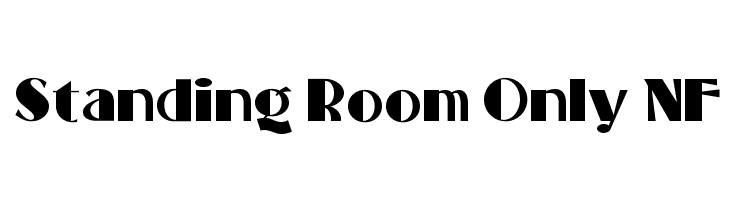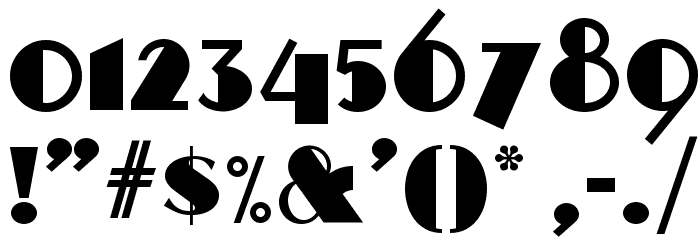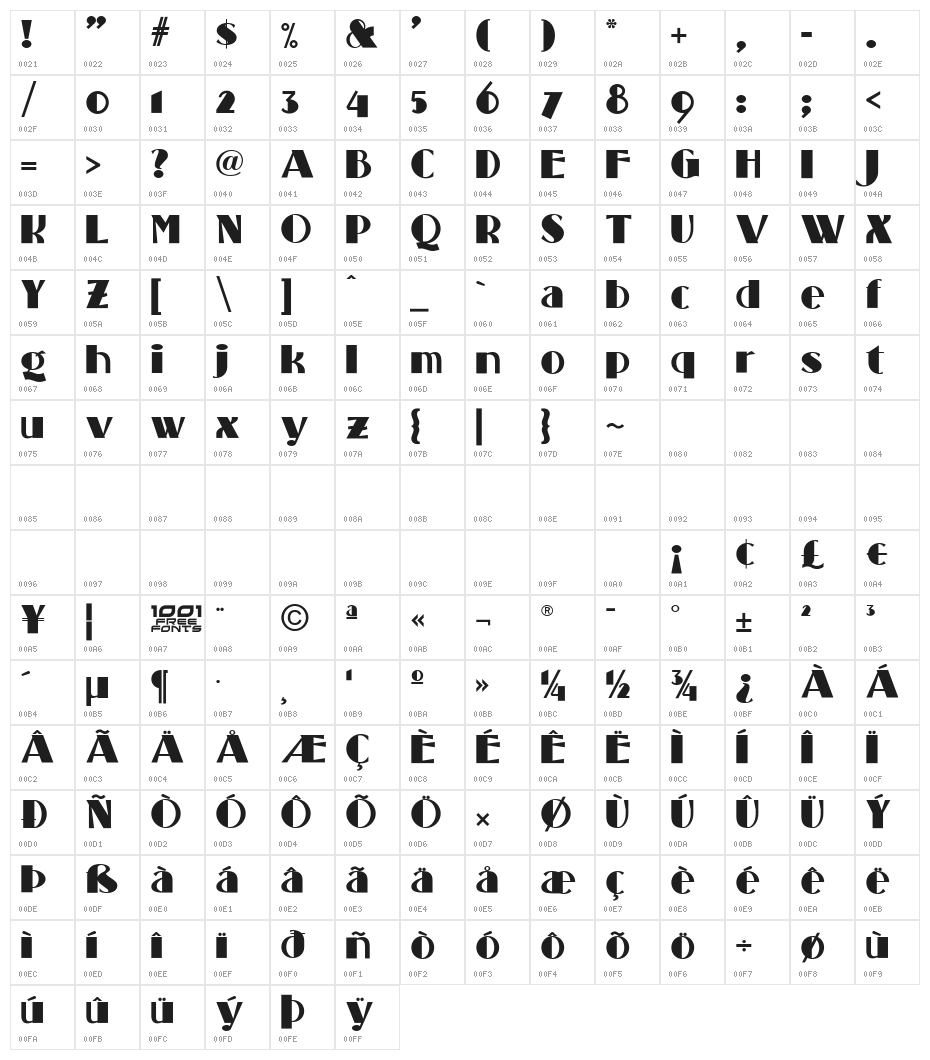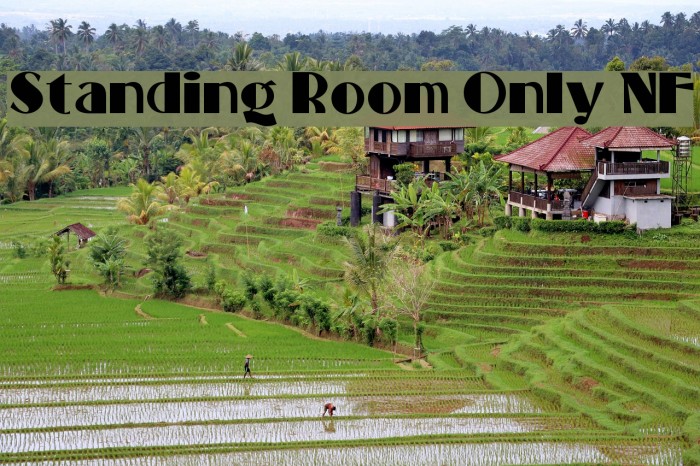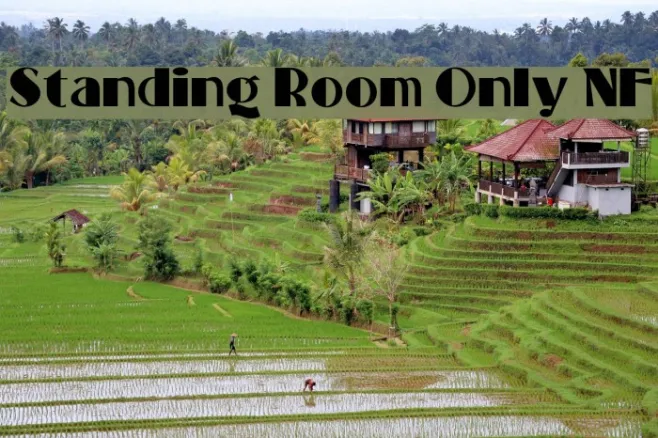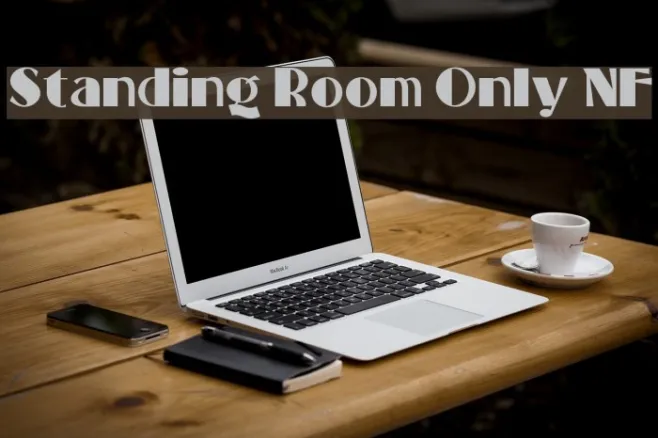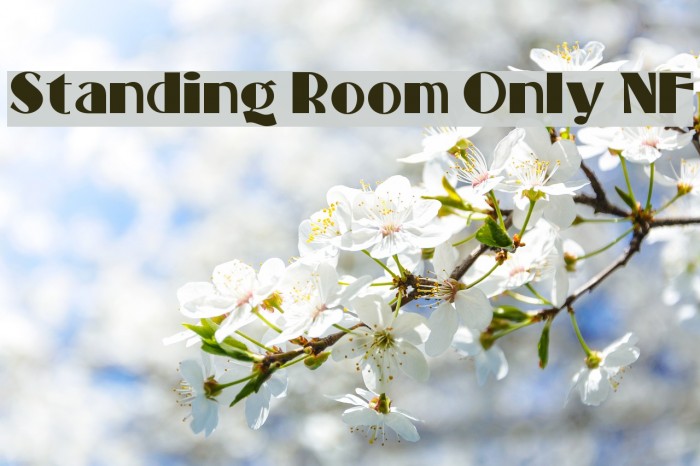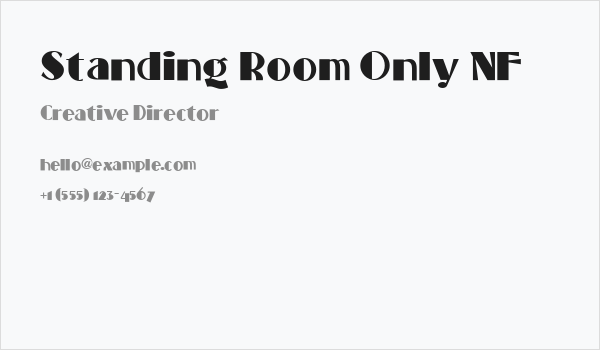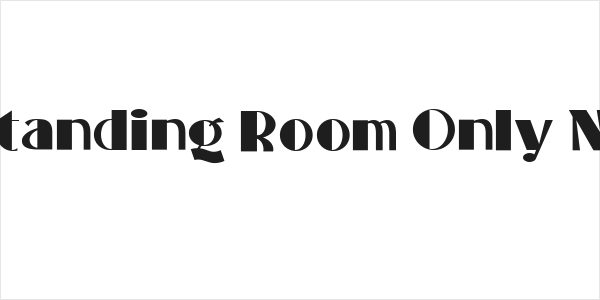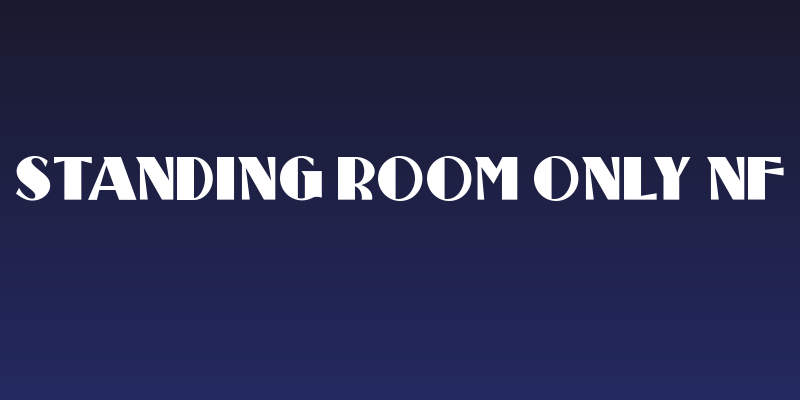
Standing Room Only NF Font
Standing Room Only NF Description
This font features a bold and striking design with a strong geometric influence. The characters are crafted with sharp angles and clean lines, creating a sense of movement and energy. The uppercase letters are particularly distinctive, with a unique interplay of thick and thin strokes that add a dynamic flair. The lowercase letters maintain this bold aesthetic, ensuring consistency across the typeface. Numbers and special characters are equally bold, making them stand out in any design. This font's high contrast and unique style make it ideal for attention-grabbing headlines and creative projects.